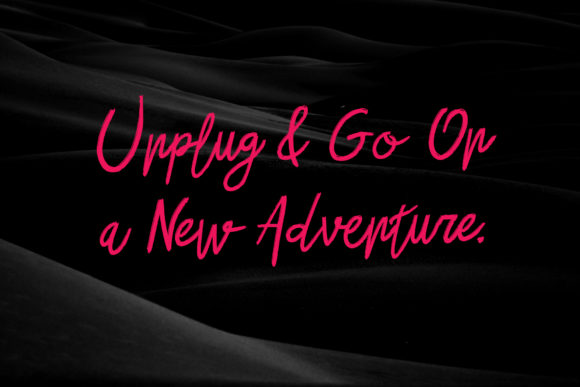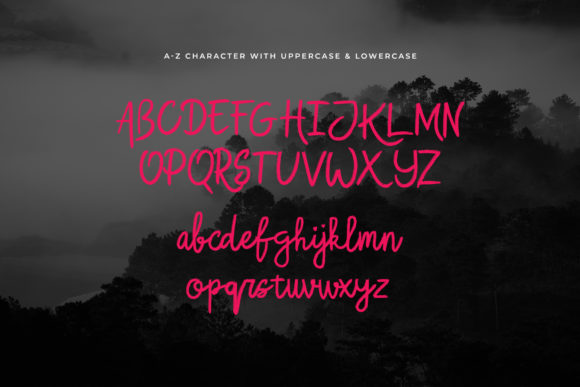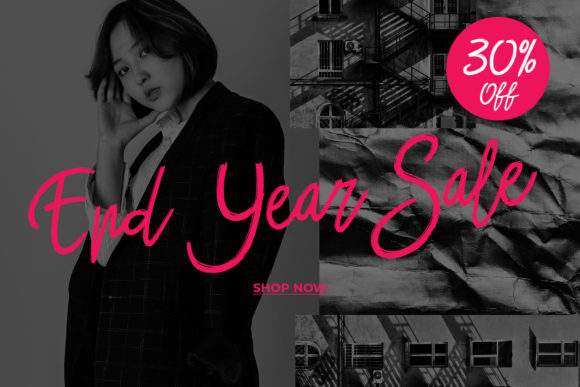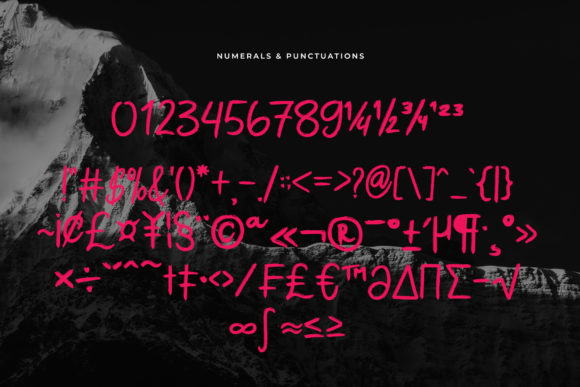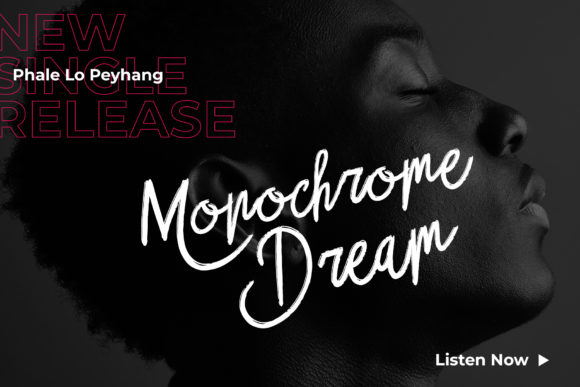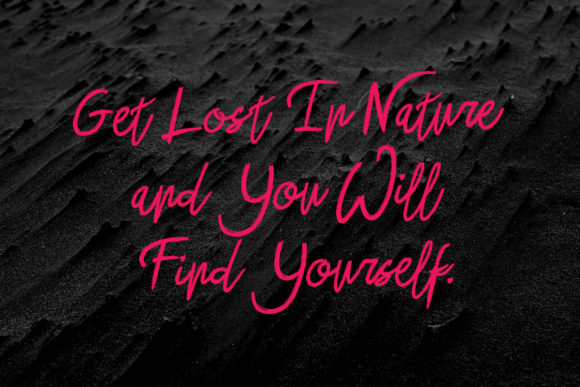
Buchero Font: The Sweet and Delicate Handwritten Font for Your Personal Projects
Are you a designer or crafter looking for a unique and charming font to add a personal touch to your projects? Look no further than Buchero, a brushed and sweet handwritten font that’s sure to capture your heart. In this article, we’ll dive into the features and benefits of Buchero, and explore how you can use it to elevate your designs and crafts.
What is Buchero Font?
Buchero is a beautifully crafted handwritten font that’s perfect for adding a touch of whimsy and charm to your projects. With its delicate and sweet strokes, Buchero is ideal for designers and crafters who want to create something truly special. Whether you’re working on a logo, branding, packaging, or any other project, Buchero is sure to impress.
Key Features of Buchero Font
- Brushed and Sweet Handwritten Style: Buchero features a unique brushed and sweet handwritten style that’s both delicate and charming.
- Incredibly Delicate and Cute: This font is perfect for designers and crafters who want to add a touch of whimsy and charm to their projects.
- Ideal for Personal Projects: Buchero is perfect for personal projects, such as crafting, scrapbooking, and DIY projects.
- PUA Encoded: Buchero is PUA encoded, which means you can access all of the glyphs and swashes with ease.
Benefits of Using Buchero Font
So why choose Buchero for your next project? Here are just a few benefits of using this beautiful font:
- Adds a Personal Touch: Buchero adds a personal touch to your projects, making them stand out from the crowd.
- Easy to Use: With its PUA encoding, Buchero is easy to use and access, even for those who are new to font design.
- Versatile: Buchero is versatile and can be used for a wide range of projects, from logos and branding to packaging and crafts.
- Unique and Eye-Catching: Buchero is a unique and eye-catching font that’s sure to grab attention.
Project Ideas Using Buchero Font
So what can you create with Buchero? Here are a few project ideas to get you started:
- Logos and Branding: Use Buchero to create a unique and eye-catching logo or branding for your business.
- Packaging Design: Add a personal touch to your packaging design with Buchero.
- Crafting and Scrapbooking: Use Buchero to add a touch of whimsy and charm to your crafting and scrapbooking projects.
- DIY Projects: Use Buchero to create unique and eye-catching DIY projects, such as signs and decorations.
| Font Name | Buchero Font |
| Author | Dustfinger |
In conclusion, Buchero is a beautiful and versatile font that’s perfect for designers and crafters who want to add a personal touch to their projects. With its delicate and sweet strokes, Buchero is sure to capture your heart. Whether you’re working on a logo, branding, packaging, or any other project, Buchero is the perfect choice. So why wait? Download Buchero today and start creating something truly special!